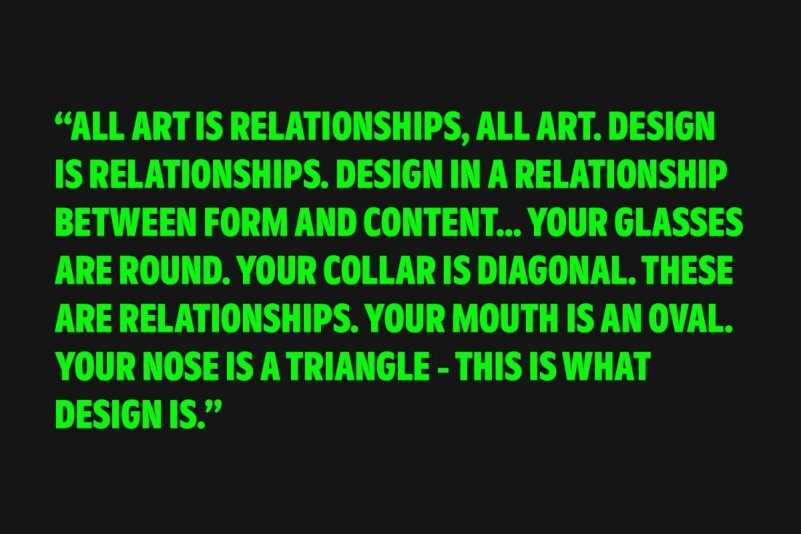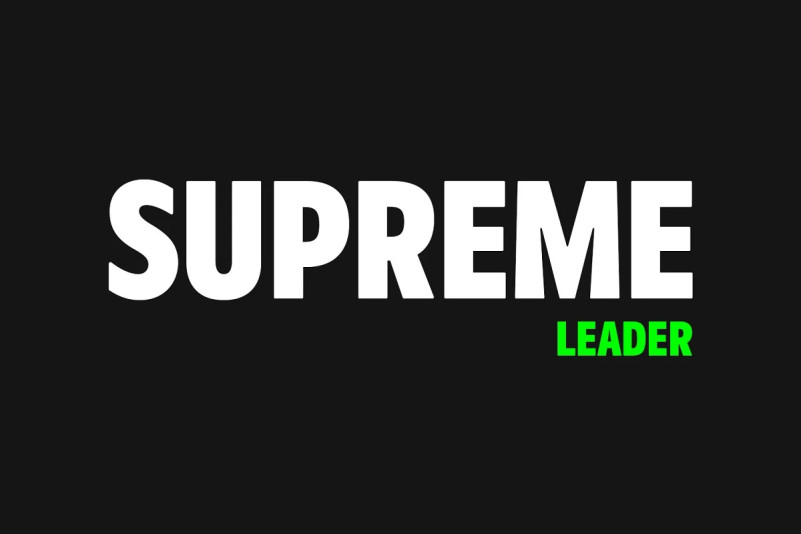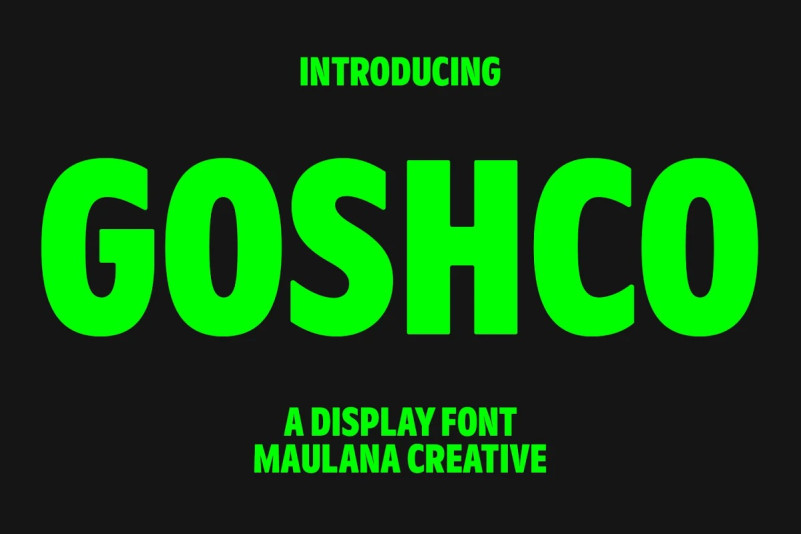
Goshco Font
Goshco Font is a strong look modern display sans serif font. With all caps and bold stroke, fun character with a bit of ligatures and alternates. To give you an extra creative work. Goshco font support multilingual more than 100+ language. This font is good for logo design, Social media, Movie Titles, Books Titles, a short text even a long text letter and good for your secondary text font with script or serif. Make a stunning work with Goshco font.